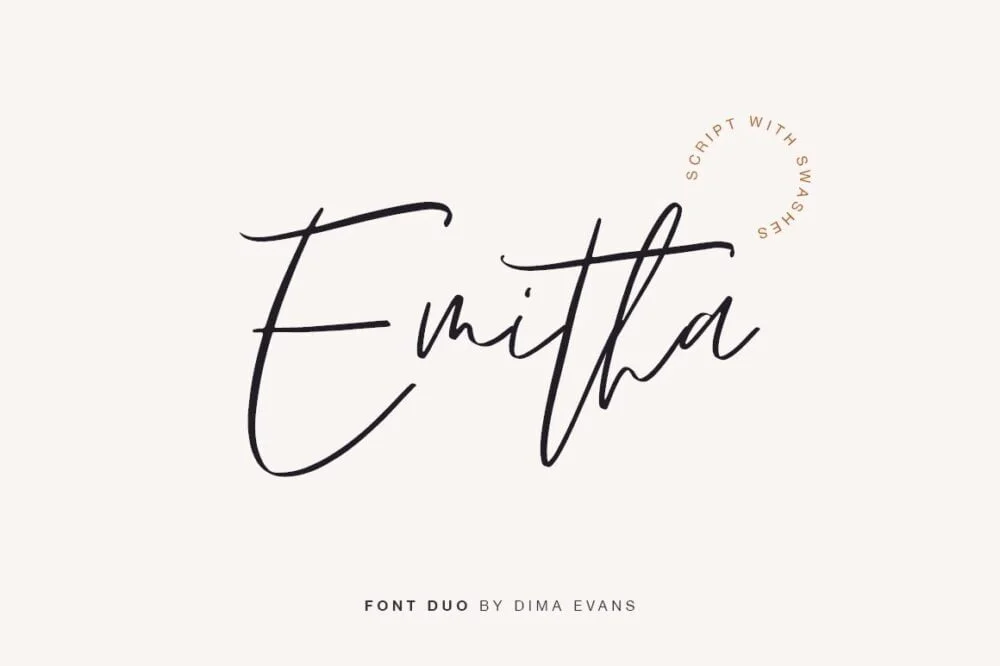
Emitha Script Font includes a full set of lovely uppercase and lowercase letters, multilingual symbols, numerals, punctuation, and ligatures. Also, it includes a large set of Swashes and Strokes. This is so perfect for invitations, monograms, etc